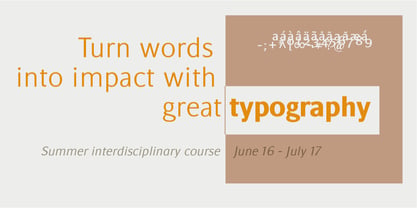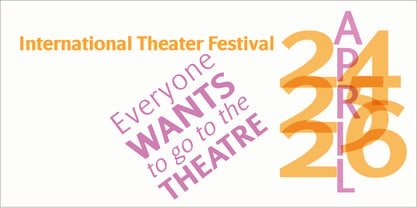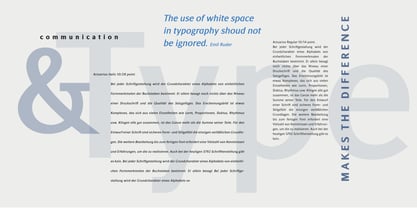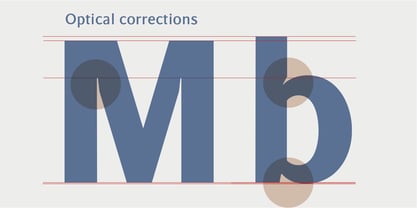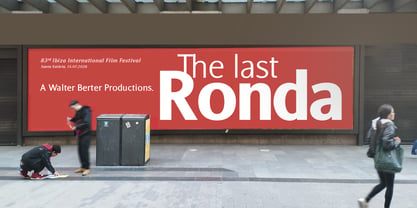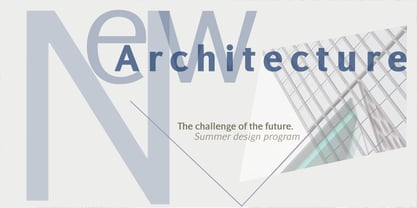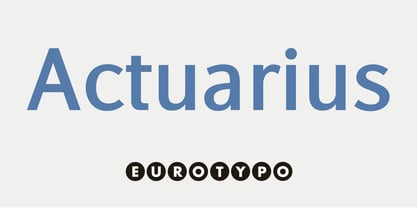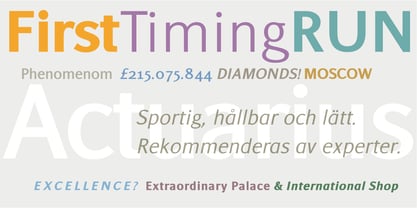
Actuarius
by Eurotypo
The Actuarius Font Family was designed by Olcar Alcaide and published by Eurotypo. Actuarius contains 18 styles and family package options. More about this family
In a compelling reflection on typographic practice, Wim Crouwel once stated: “For good understanding we have to divide experimental typography from experiments of research in typography.” This distinction becomes particularly meaningful when approaching type design as a disciplined process—one that seeks clarity, function, and precision beyond mere stylistic exploration. Actuarius is a sans serif type family born from that very philosophy. It is the result of a continuous and deliberate pursuit of reduction—stripping away superfluous stylistic elements to achieve a pure, restrained, and highly functional form. Rather than relying on ornamentation, Actuarius is grounded in clarity, making it especially suited for environments where information must be communicated with accuracy and efficiency. Its formal construction is carefully engineered through meticulous optical corrections and a thoughtfully calibrated letterspacing system. Each character has been designed to ensure balance, consistency, and maximum legibility across a wide range of sizes and applications. The rhythm of the text is stable and controlled, allowing for a smooth reading experience even in dense informational contexts. Actuarius stands as a contemporary typographic tool that embraces austerity without sacrificing personality. Its clean and neutral voice makes it an ideal choice for editorial design, data visualization, corporate communication, user interfaces, and any project where clarity and precision are essential. By prioritizing structure over decoration, Actuarius reflects a modern typographic ethos—one that values research, discipline, and the enduring power of well-crafted simplicity.